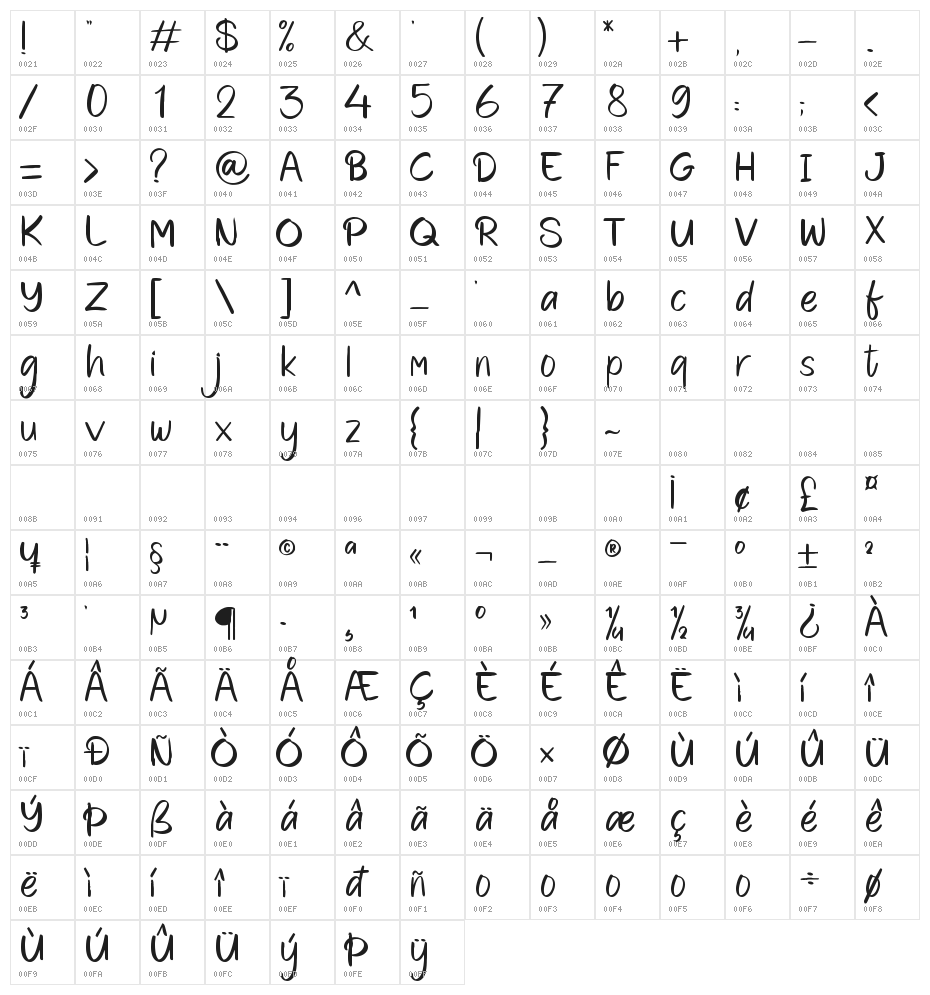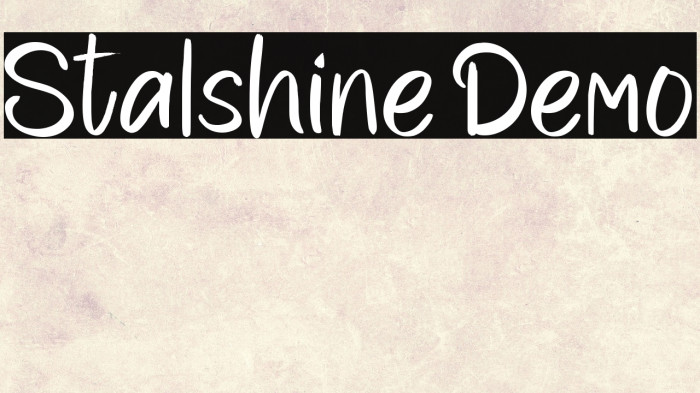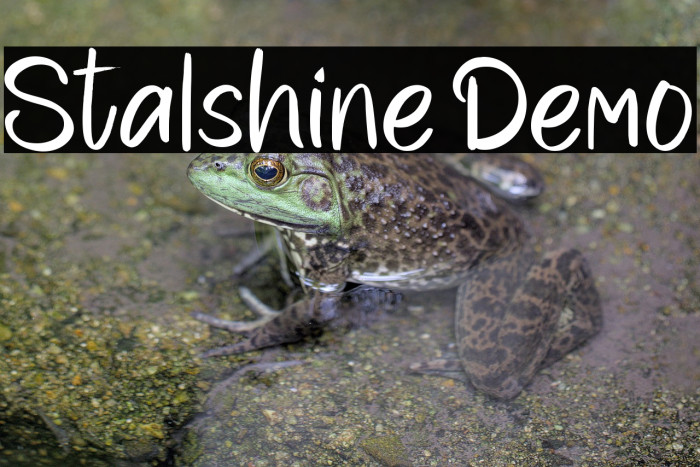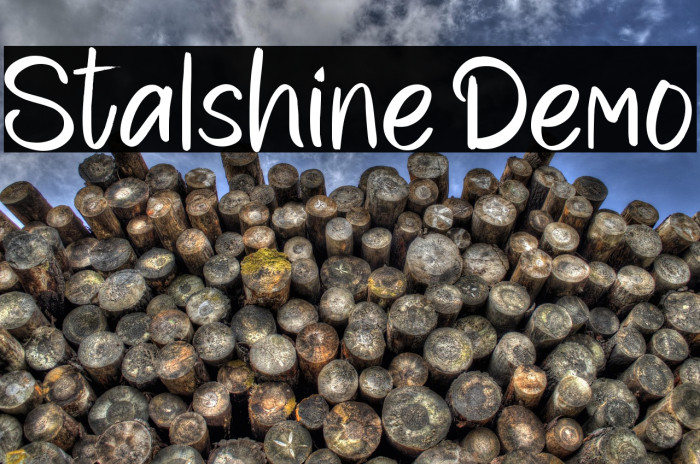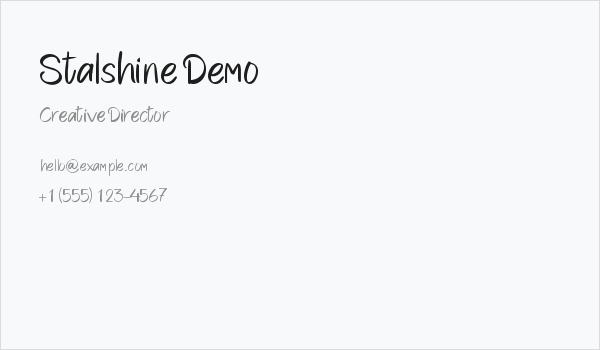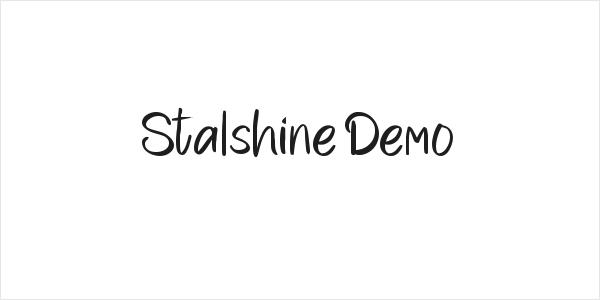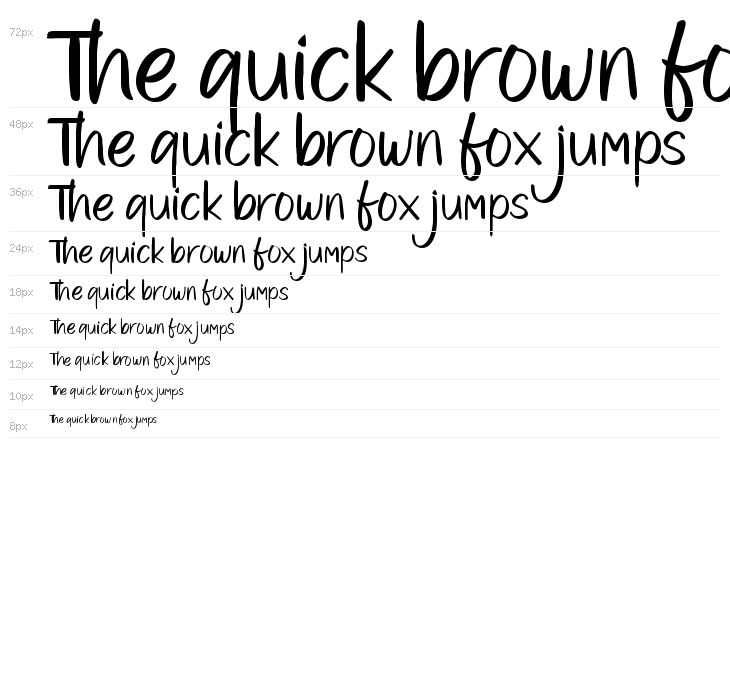
Stalshine Demo Font
Stalshine Demo Description
This font features a playful and casual handwritten style, characterized by smooth, flowing strokes that give it a friendly and approachable appearance. The letters are slightly slanted, adding to the informal feel, while maintaining good readability. The uppercase and lowercase letters are well-balanced, with consistent stroke widths that provide a harmonious look. The numerals and special characters are designed to match the overall style, making this font versatile for various applications. Its unique charm makes it suitable for creative projects that require a personal touch.